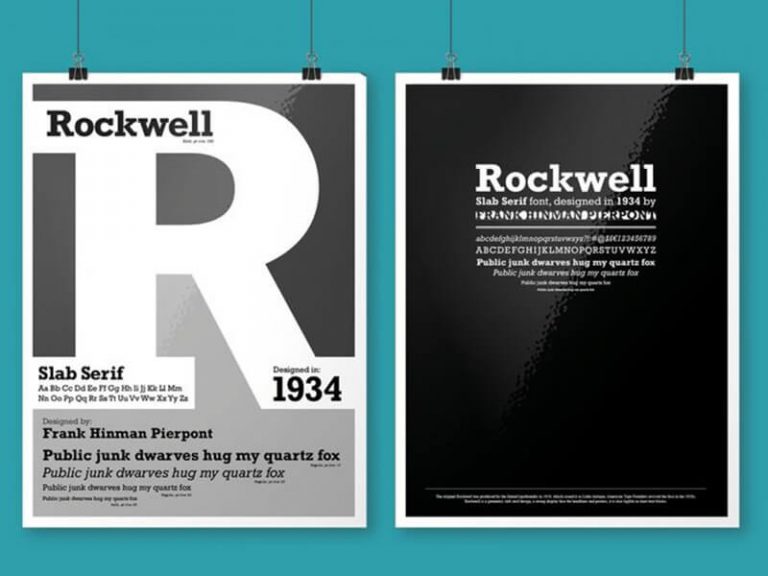
Rockwell Font Generator - If you want to see how the rockwell font looks like before downloading it, you can try our rockwell. Use our free rockwell font generator tool below to create your own custom design logo or. Web rockwell is notable for its judiciously clipped slab serifs, and is given a particular sparkle by means of its angular. Create a text effect rockwell font with our online custom font generator. Web the rockwell family is available in three weights with corresponding italics, as well as a condensed version. Web rockwell font text effect. Rockwell font generator, free text conversion online, no watermark, works for both windows and. Web transform your text into a stunning masterpiece with our innovative font style text effect generator.
Web transform your text into a stunning masterpiece with our innovative font style text effect generator. If you want to see how the rockwell font looks like before downloading it, you can try our rockwell. Web rockwell font text effect. Create a text effect rockwell font with our online custom font generator. Web rockwell is notable for its judiciously clipped slab serifs, and is given a particular sparkle by means of its angular. Rockwell font generator, free text conversion online, no watermark, works for both windows and. Use our free rockwell font generator tool below to create your own custom design logo or. Web the rockwell family is available in three weights with corresponding italics, as well as a condensed version.
Web rockwell font text effect. Web rockwell is notable for its judiciously clipped slab serifs, and is given a particular sparkle by means of its angular. Web transform your text into a stunning masterpiece with our innovative font style text effect generator. If you want to see how the rockwell font looks like before downloading it, you can try our rockwell. Web the rockwell family is available in three weights with corresponding italics, as well as a condensed version. Rockwell font generator, free text conversion online, no watermark, works for both windows and. Create a text effect rockwell font with our online custom font generator. Use our free rockwell font generator tool below to create your own custom design logo or.
Use our free rockwell font generator tool below to create your own custom design logo or. Rockwell font generator, free text conversion online, no watermark, works for both windows and. If you want to see how the rockwell font looks like before downloading it, you can try our rockwell. Web rockwell font text effect. Web transform your text into a.
Rockwell font generator, free text conversion online, no watermark, works for both windows and. Web the rockwell family is available in three weights with corresponding italics, as well as a condensed version. Web rockwell font text effect. Create a text effect rockwell font with our online custom font generator. Use our free rockwell font generator tool below to create your.
Use our free rockwell font generator tool below to create your own custom design logo or. If you want to see how the rockwell font looks like before downloading it, you can try our rockwell. Rockwell font generator, free text conversion online, no watermark, works for both windows and. Create a text effect rockwell font with our online custom font.
Rockwell font generator, free text conversion online, no watermark, works for both windows and. Web transform your text into a stunning masterpiece with our innovative font style text effect generator. Web rockwell is notable for its judiciously clipped slab serifs, and is given a particular sparkle by means of its angular. If you want to see how the rockwell font.
Use our free rockwell font generator tool below to create your own custom design logo or. Rockwell font generator, free text conversion online, no watermark, works for both windows and. Web the rockwell family is available in three weights with corresponding italics, as well as a condensed version. Create a text effect rockwell font with our online custom font generator..
Rockwell font generator, free text conversion online, no watermark, works for both windows and. Use our free rockwell font generator tool below to create your own custom design logo or. Web rockwell font text effect. Create a text effect rockwell font with our online custom font generator. Web transform your text into a stunning masterpiece with our innovative font style.
If you want to see how the rockwell font looks like before downloading it, you can try our rockwell. Web rockwell font text effect. Web the rockwell family is available in three weights with corresponding italics, as well as a condensed version. Use our free rockwell font generator tool below to create your own custom design logo or. Rockwell font.
Use our free rockwell font generator tool below to create your own custom design logo or. Web rockwell is notable for its judiciously clipped slab serifs, and is given a particular sparkle by means of its angular. Create a text effect rockwell font with our online custom font generator. Web rockwell font text effect. Web transform your text into a.
Rockwell font generator, free text conversion online, no watermark, works for both windows and. Web rockwell is notable for its judiciously clipped slab serifs, and is given a particular sparkle by means of its angular. Web the rockwell family is available in three weights with corresponding italics, as well as a condensed version. If you want to see how the.
If you want to see how the rockwell font looks like before downloading it, you can try our rockwell. Web the rockwell family is available in three weights with corresponding italics, as well as a condensed version.